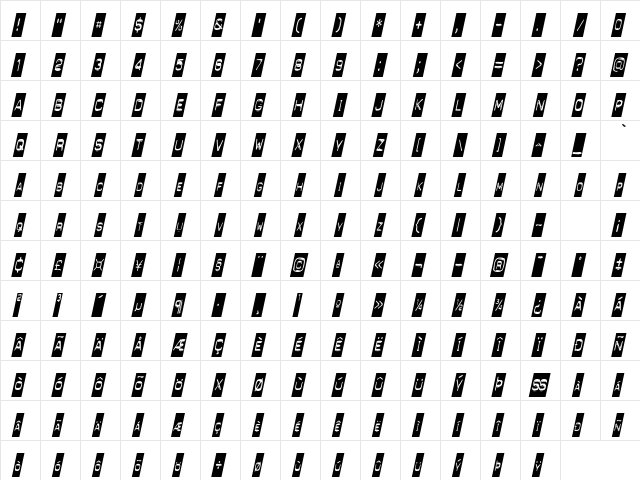
PunchLabelCondensed Italic
Design Context for PunchLabelCondensed Typeface
PunchLabelCondensed is a composed and adaptable typeface that performs quietly and consistently across a wide range of design contexts. The dynamic lean of this cut emphasises speed and emphasis in any layout. Its narrow stance lets it pack a punch even in space-constrained designs.